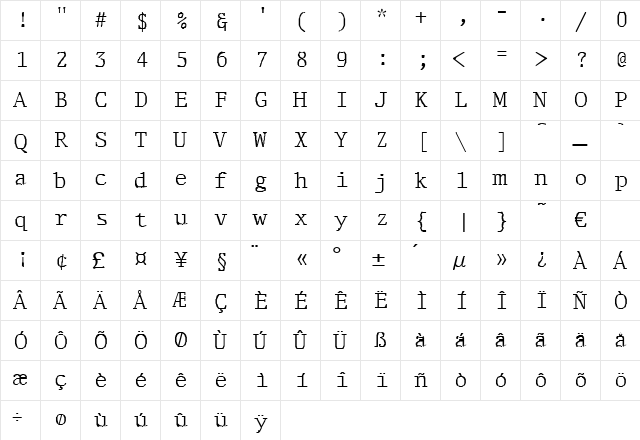
Outsider Regular
Design Context for Outsider
Outsider is a composed and adaptable typeface that performs quietly and consistently across a wide range of design contexts.
Pro Tip: Use Outsider in both headline and body roles to test its range before committing to a single application.